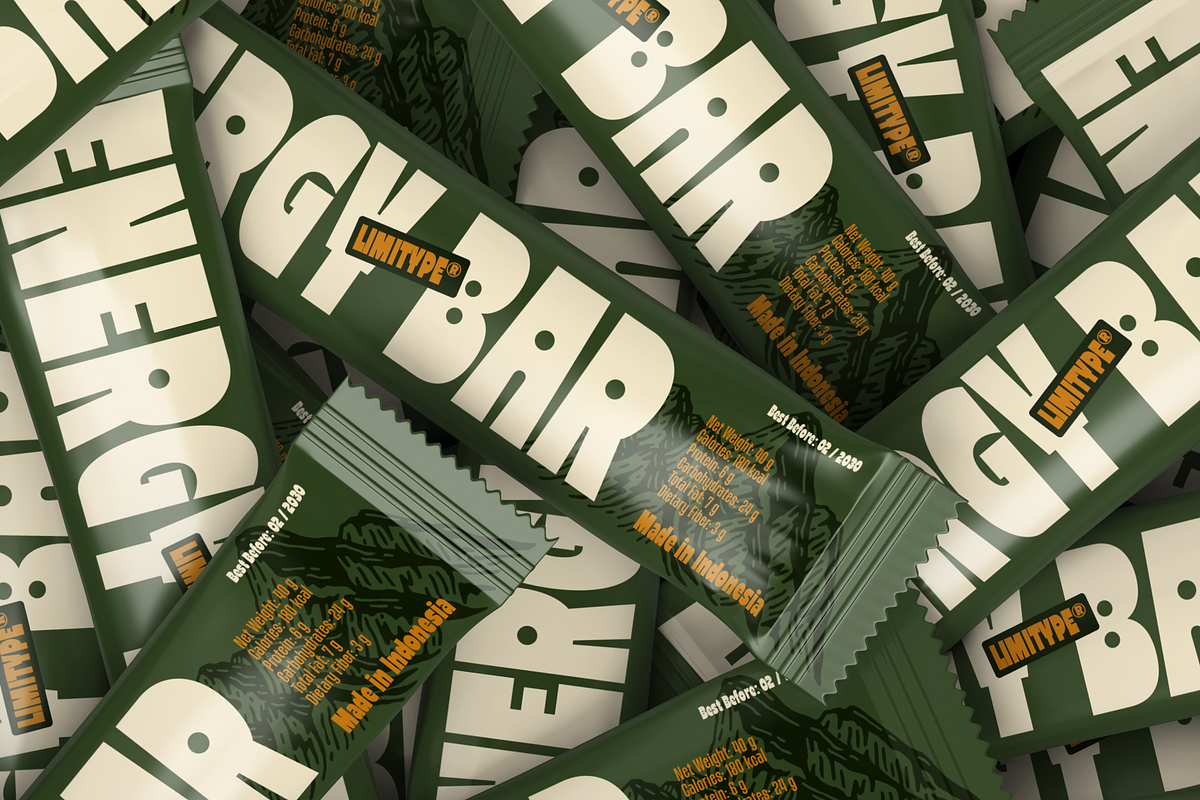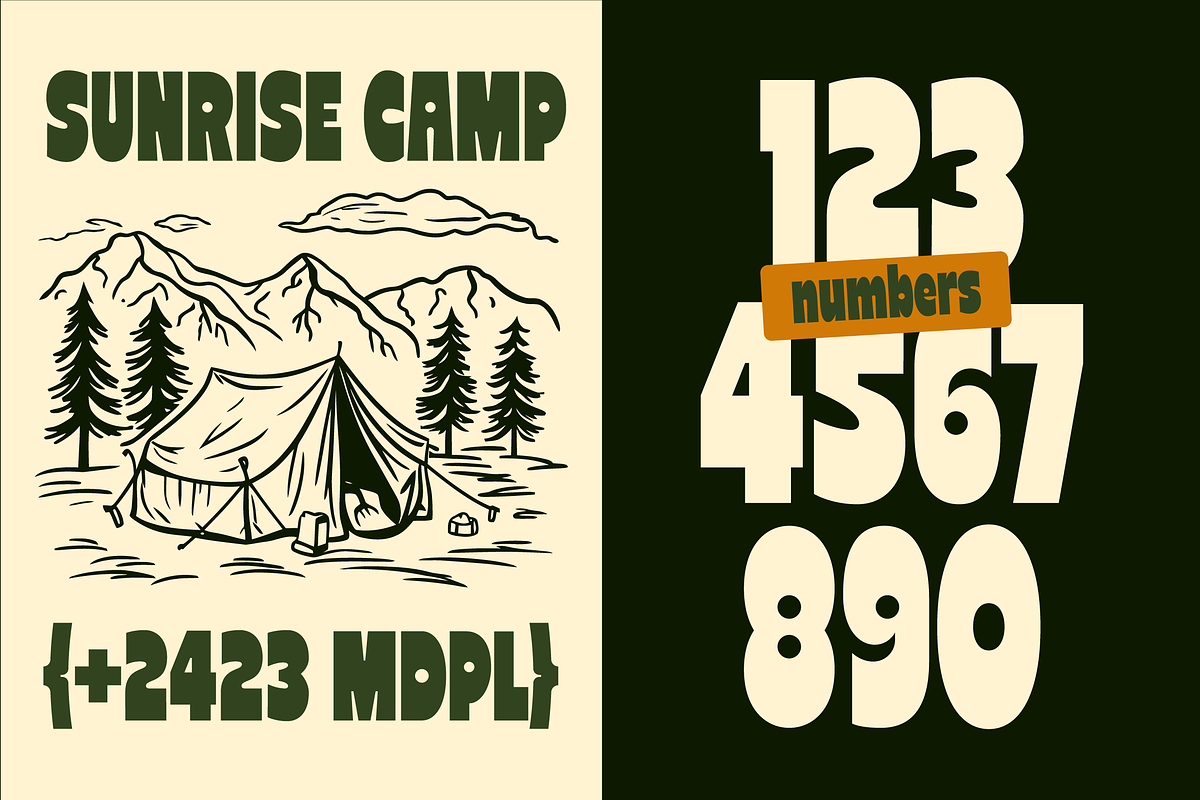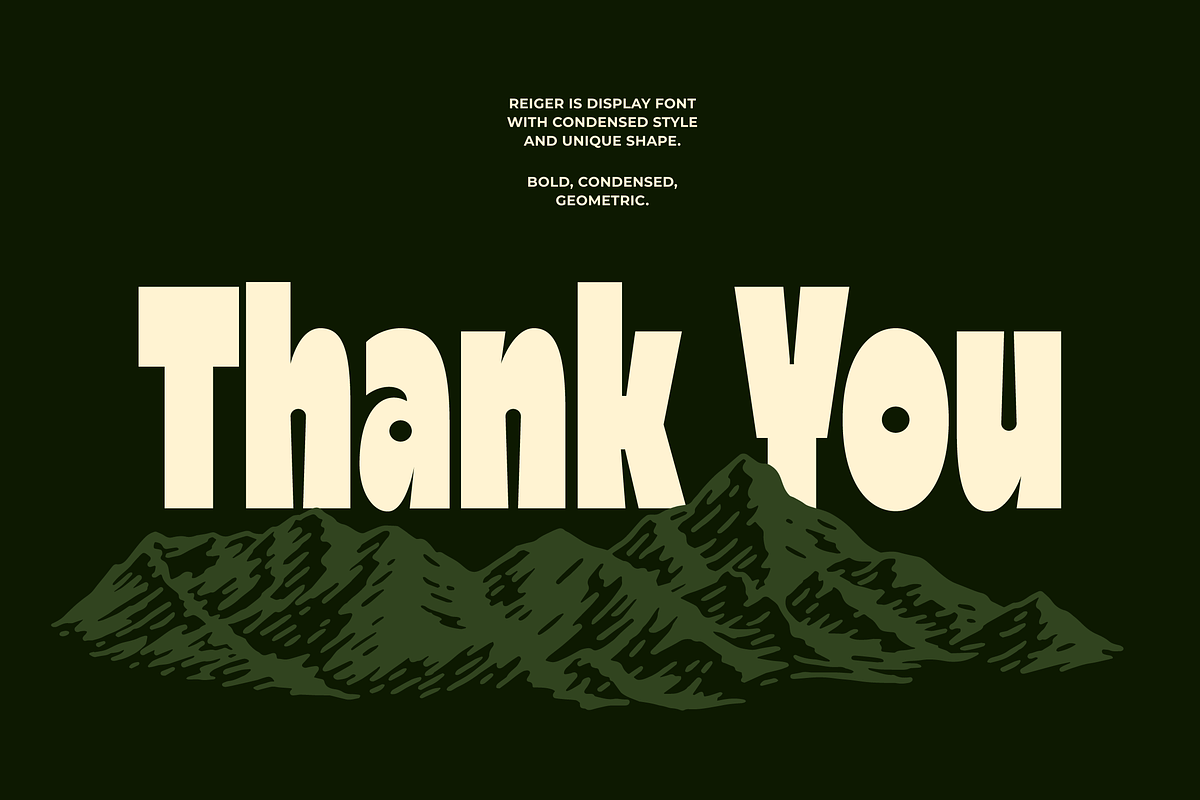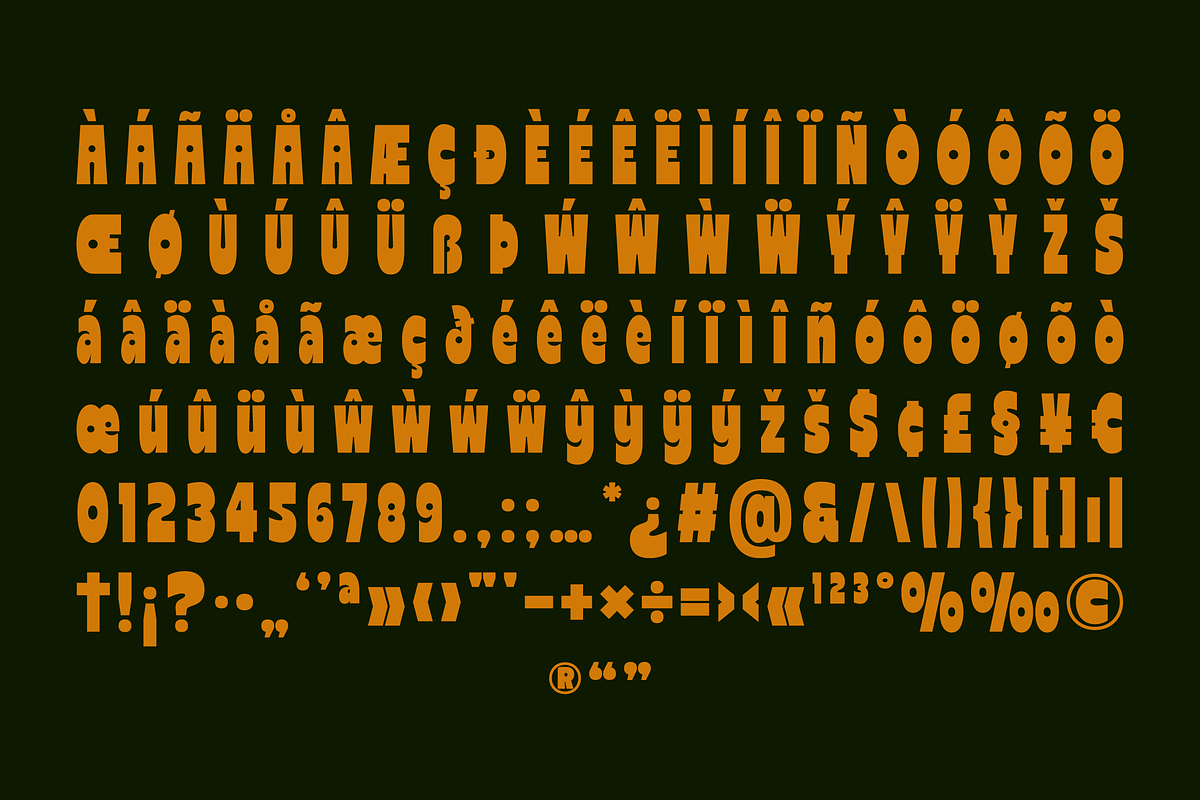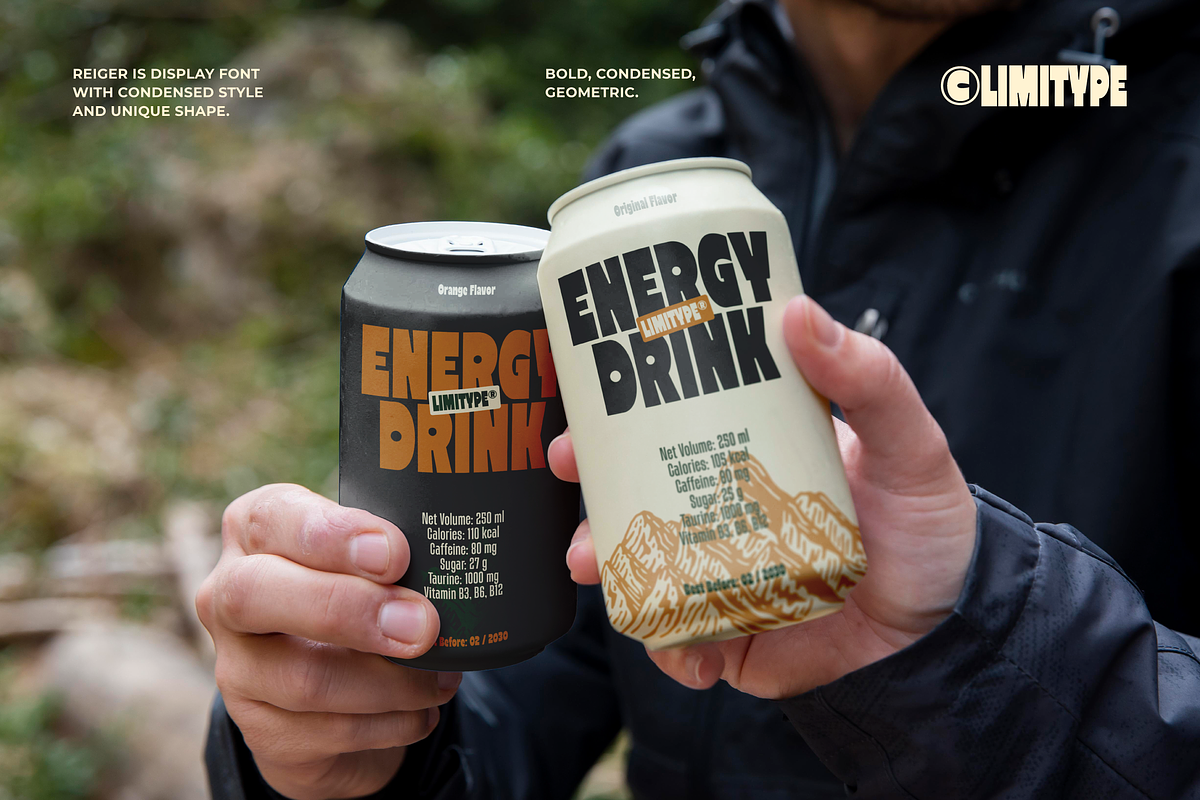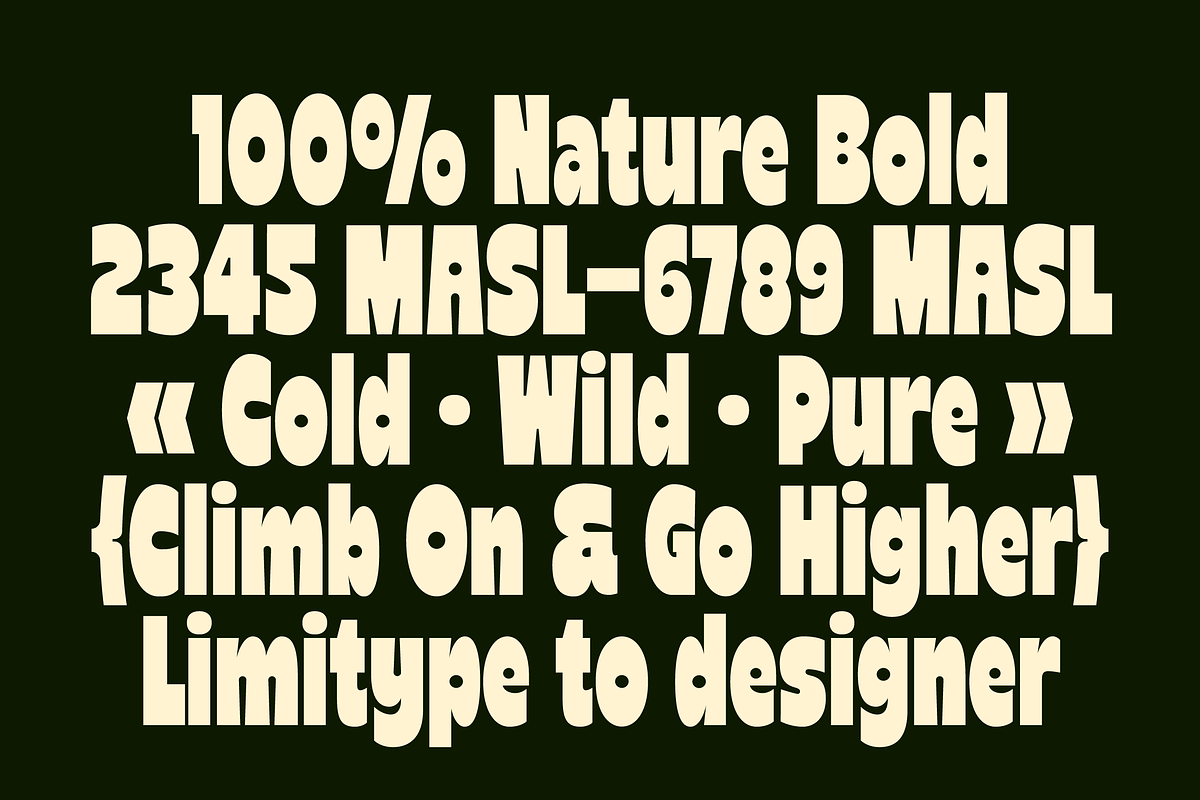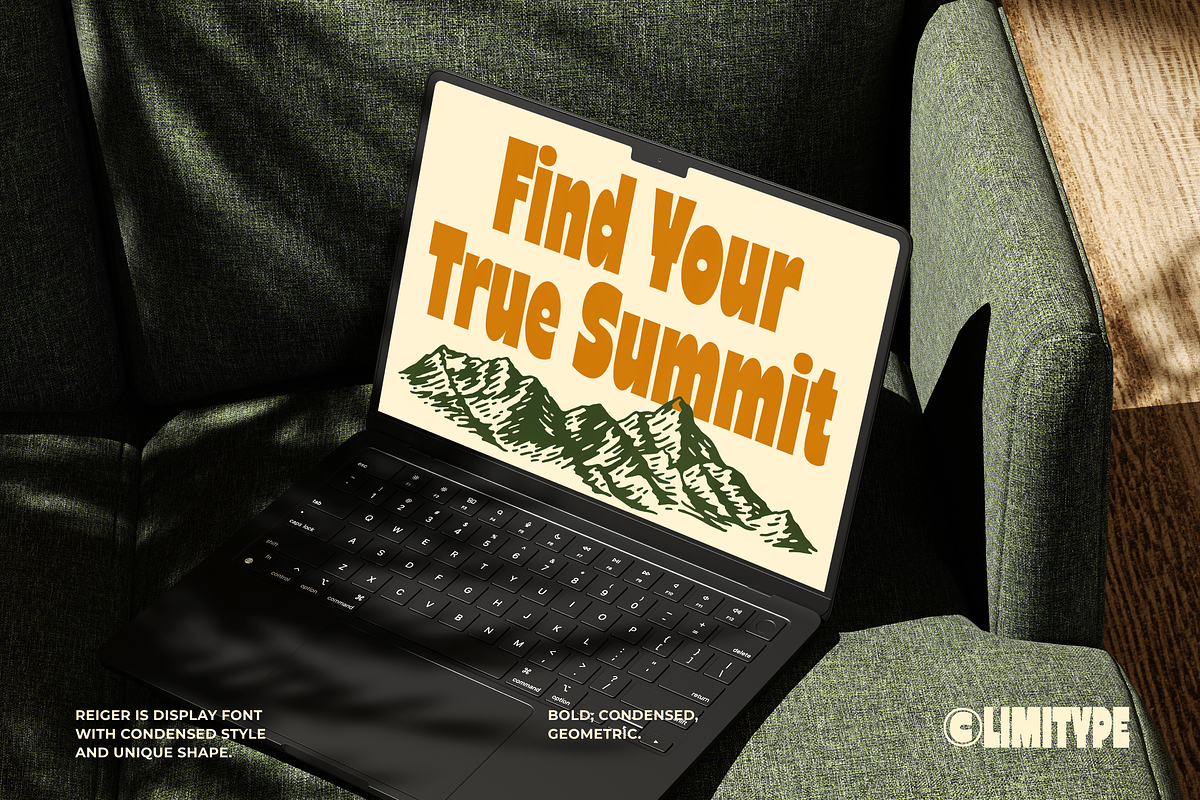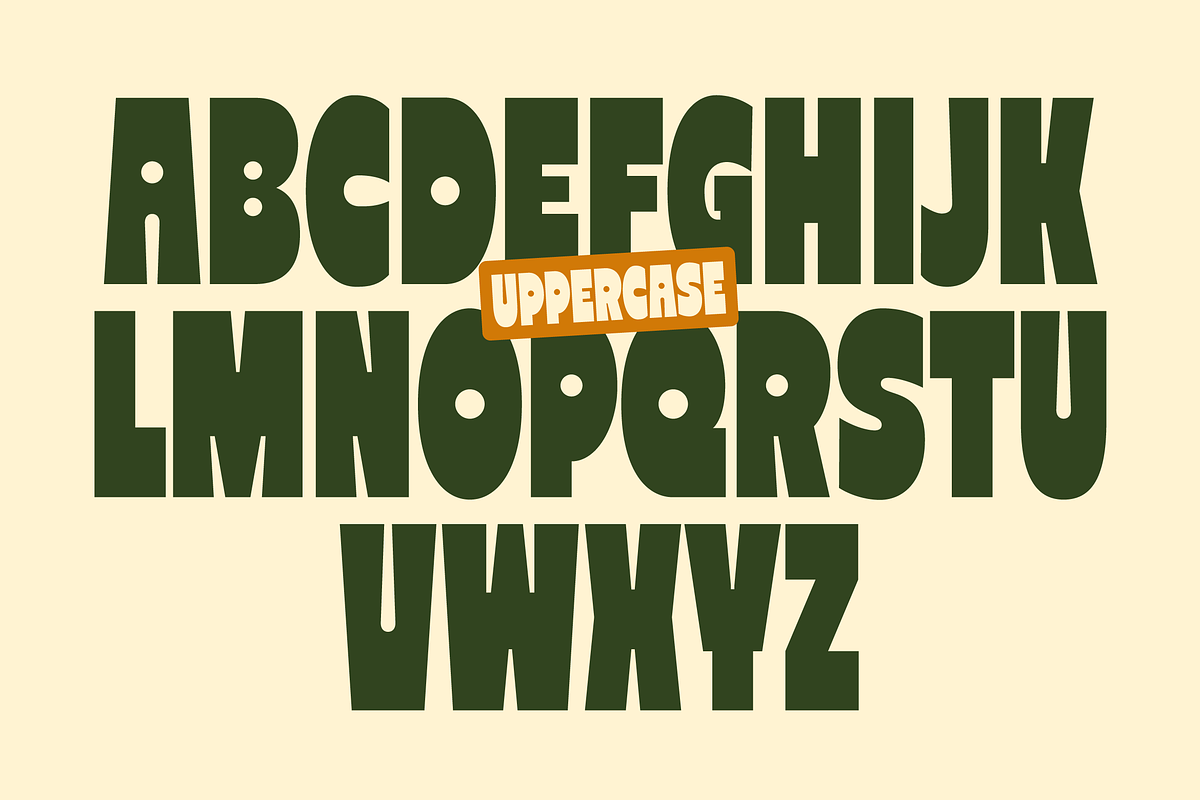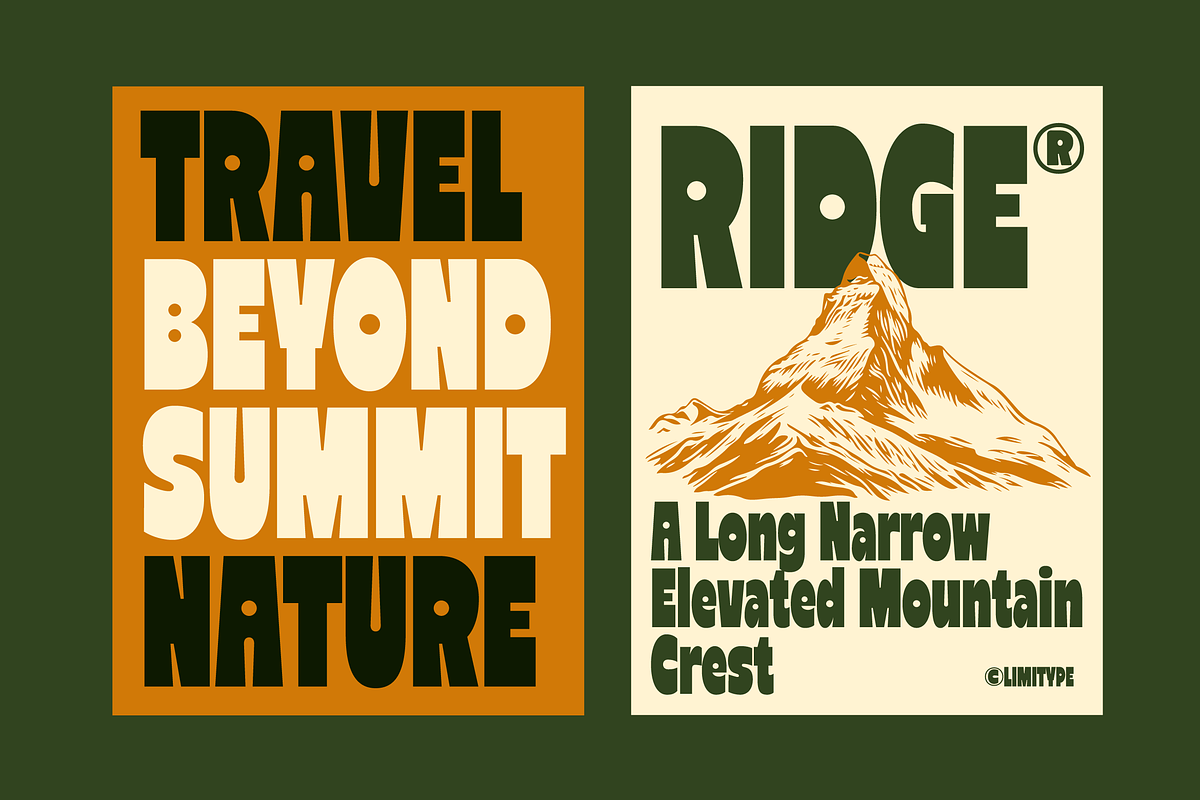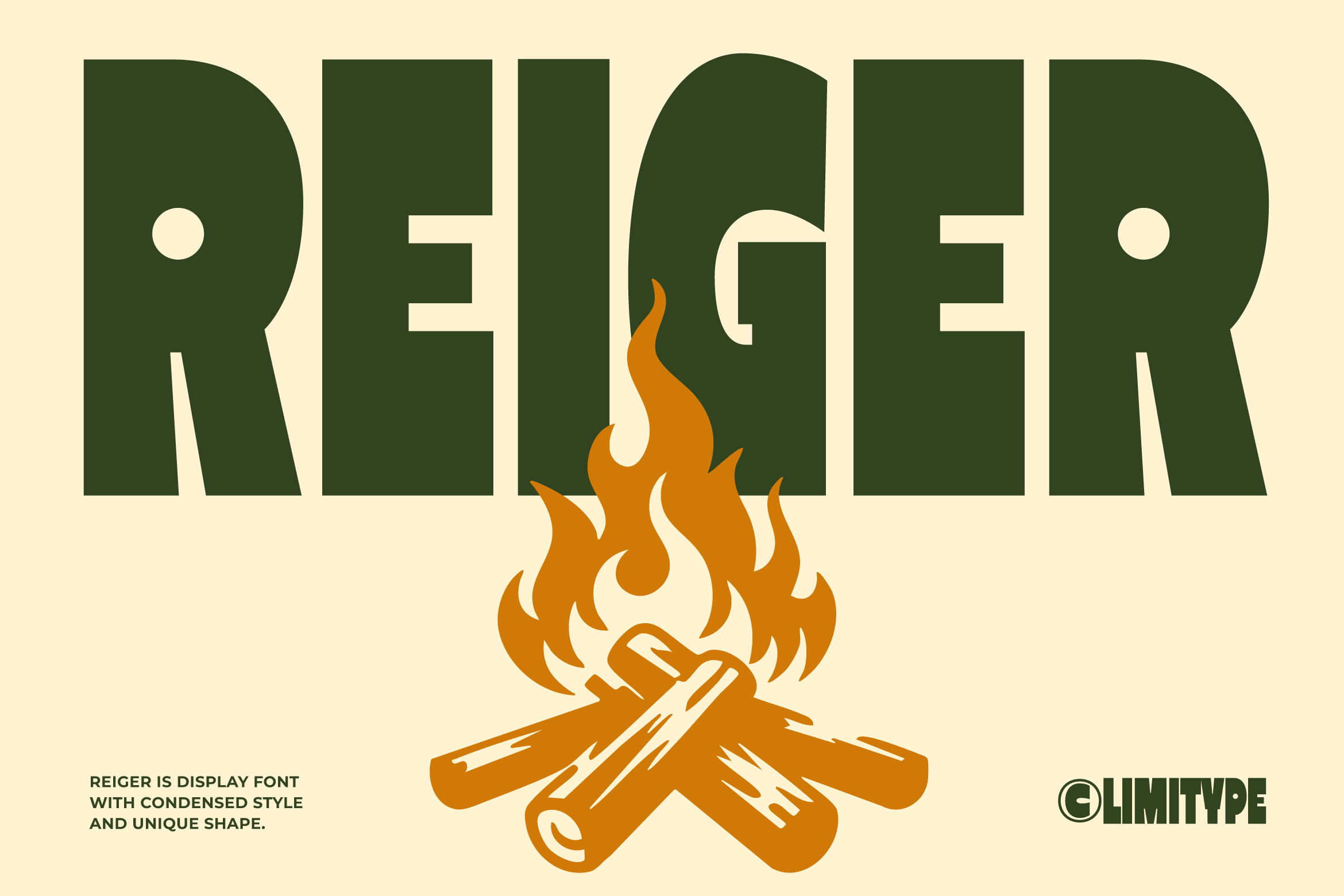
Reiger - Bold Condensed Font
Reiger is a bold display typeface with a condensed structure and a strong, assertive character. Designed to deliver powerful visual impact while maintaining high readability, Reiger presents a modern and distinctive presence. Inspired by the spirit of adventure and the outdoors, this font is ideal for headlines, posters, logos, packaging, apparel, and branding projects that require a confident, impactful, and visually compelling appearance.